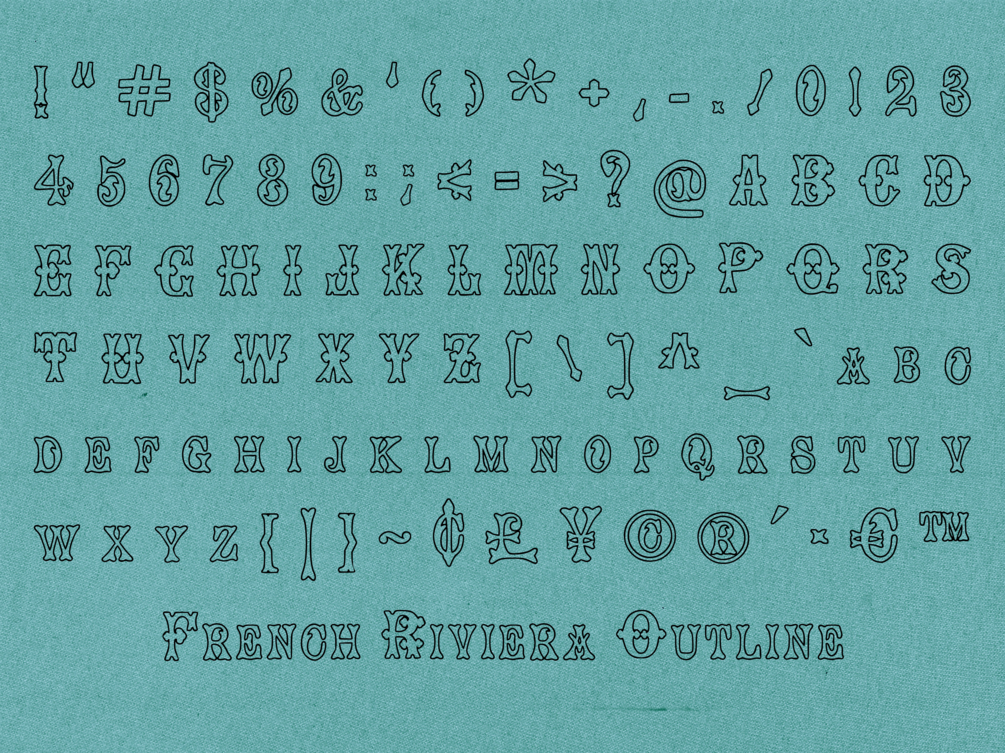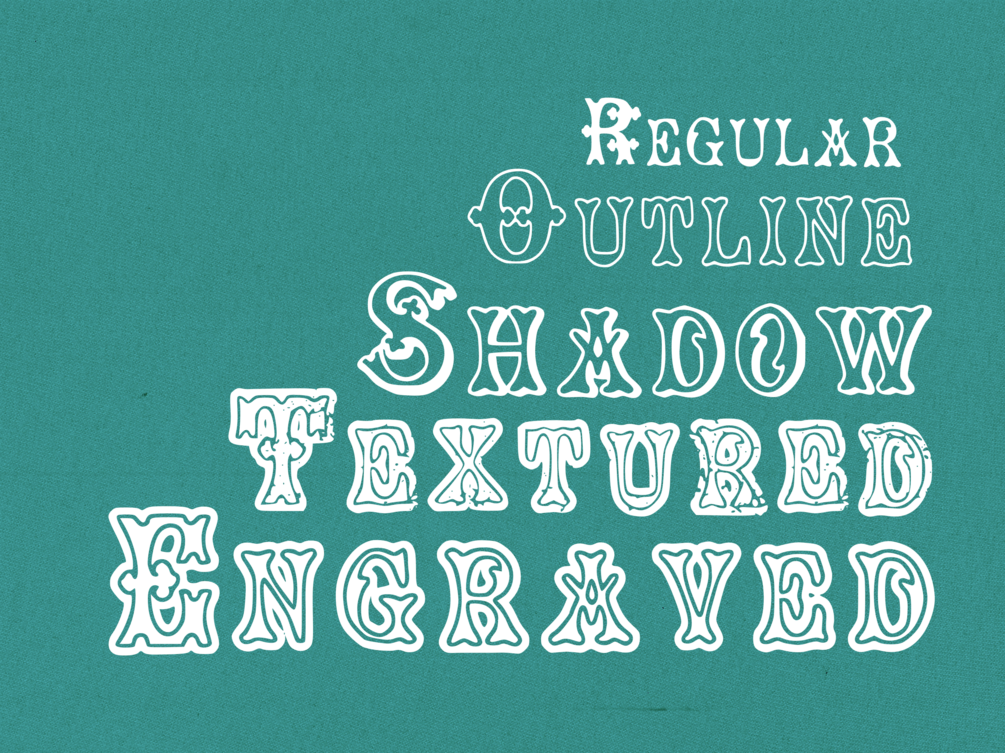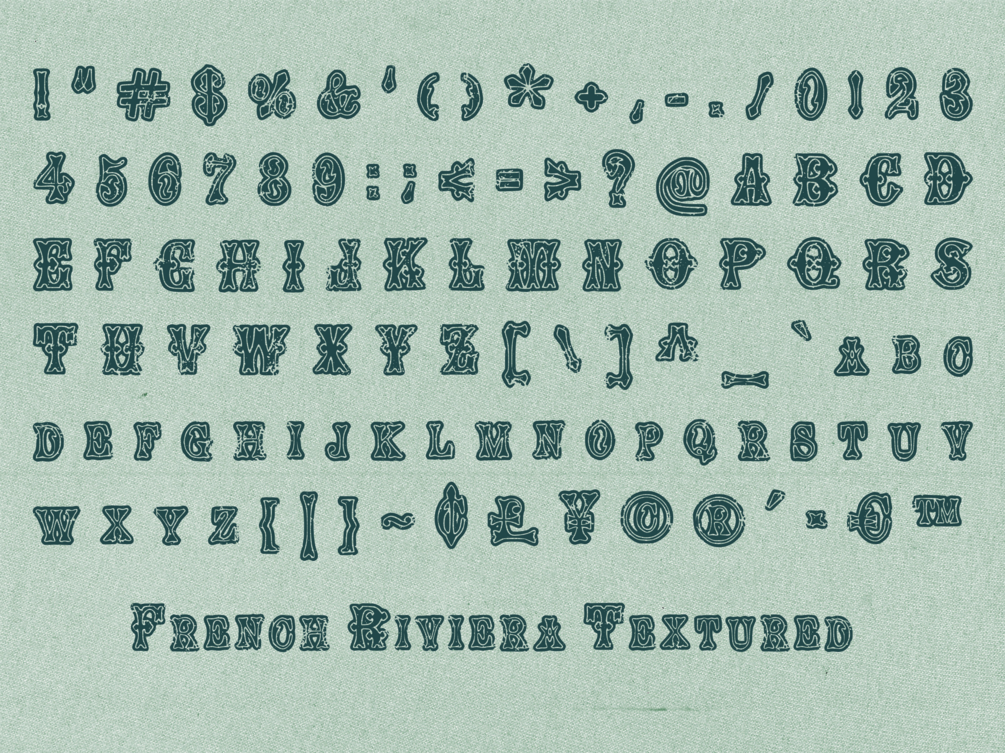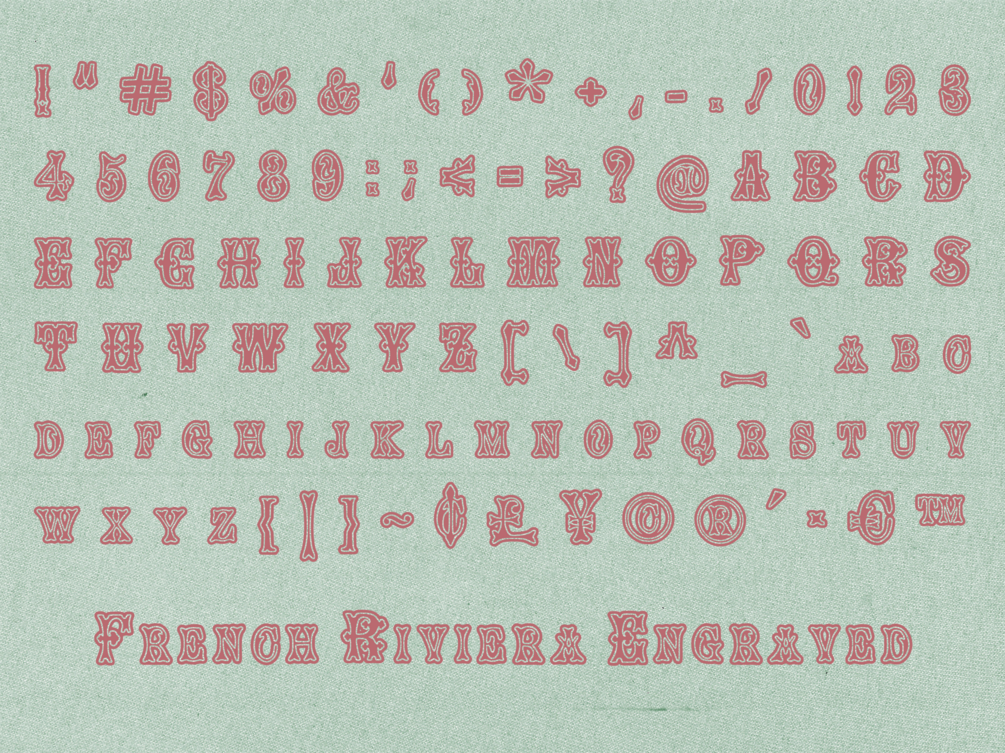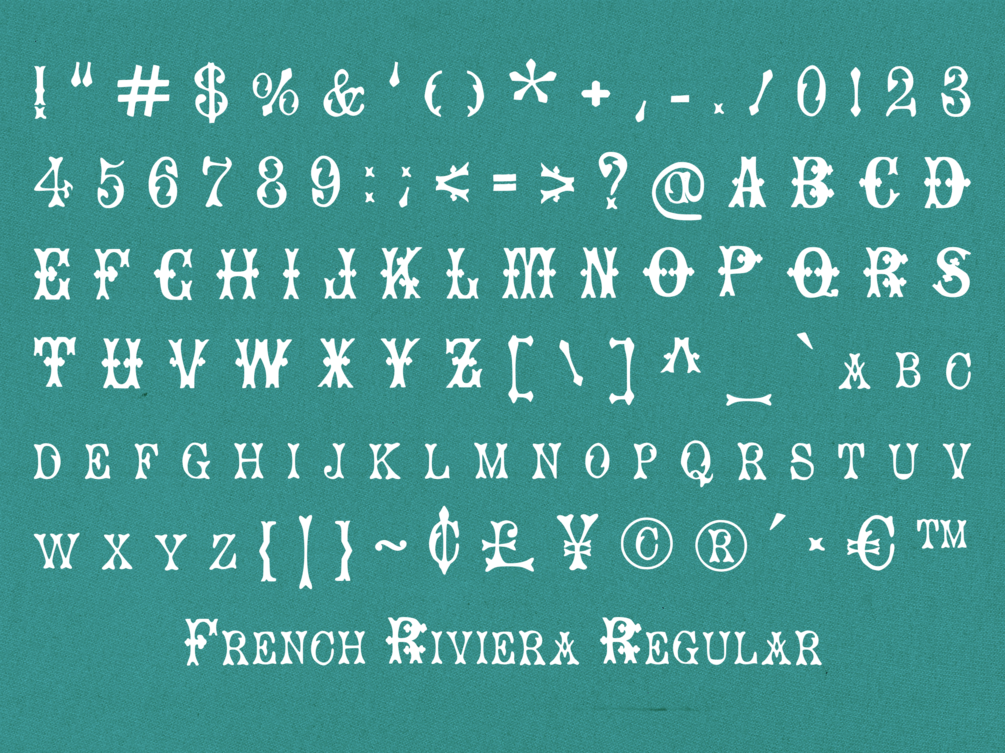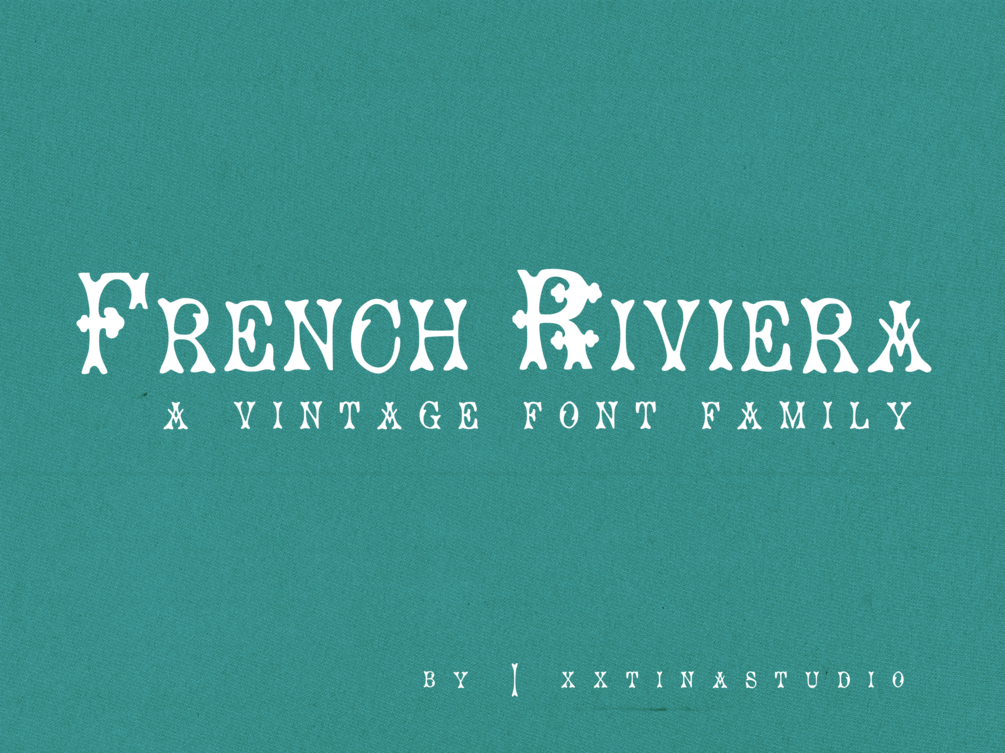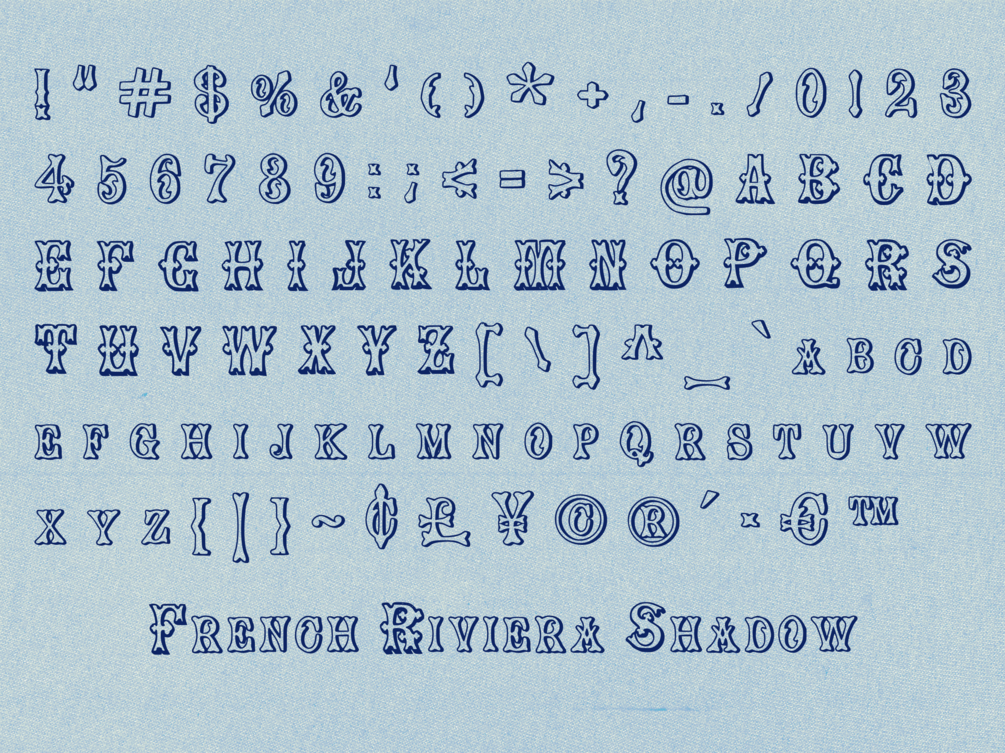
French Riviera
French Riviera is a vintage display font stylistic of the typefaces notable in French sign lettering seen in past centuries. It is versatile display font perfect for giving your designs an antique, elegant flare. Made up of 5 typefaces featuring a regular, textured, shadow, outline, and engraved version.
French Riviera Font Family